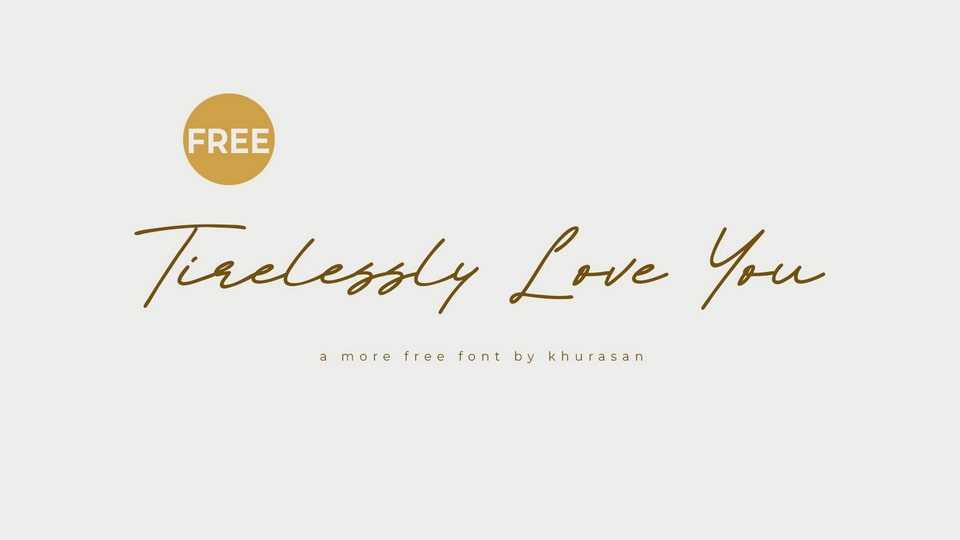
Download Tirelessy Love You font, a handwritten typeface that blends casual flair with a hint of refined elegance. Each letter exudes a signature-style charm, creating an authentic and approachable feel.